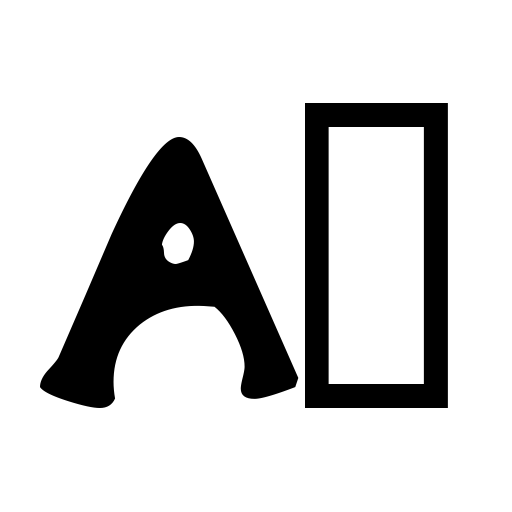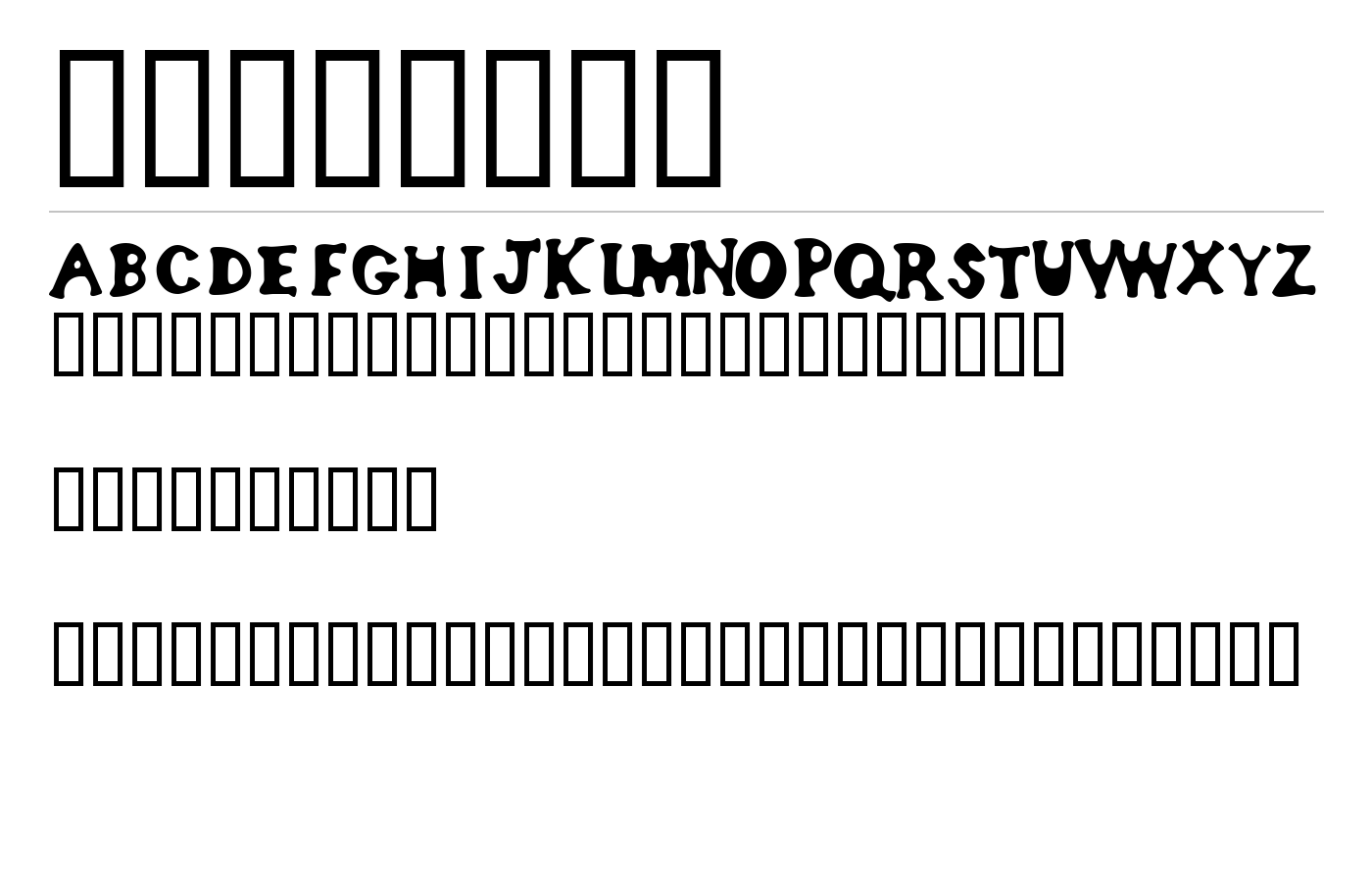
Bodypump is a bold, whimsical display font characterized by its thick, irregular letterforms that give a playful and lively feel. Its chunky, slightly quirky shapes create a warm and approachable vibe, making it ideal for creative headlines, posters, and branding that aims for a fun and energetic personality. This font works well in designs that want to stand out with a touch of unique charm and informal style.
bodypump Font